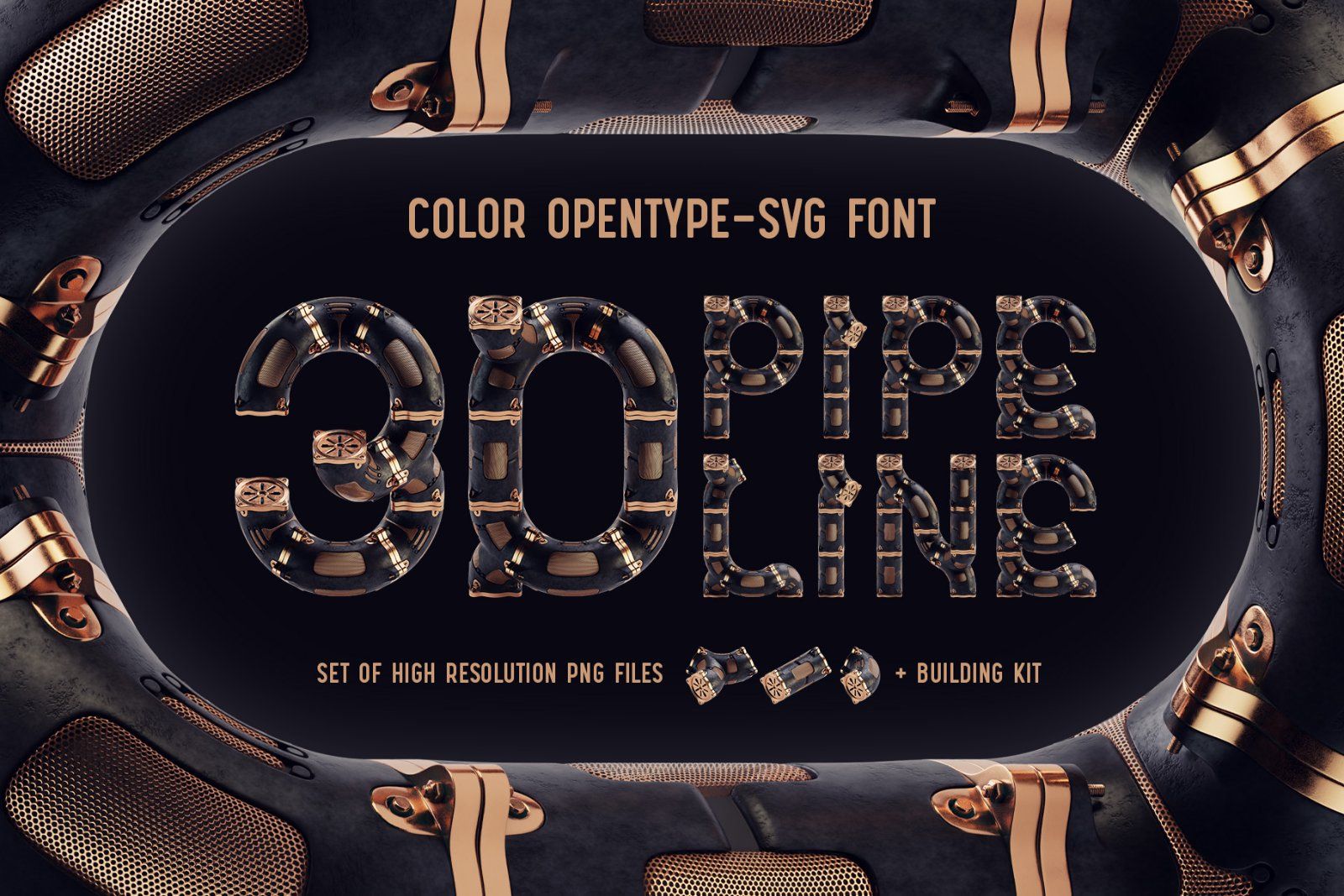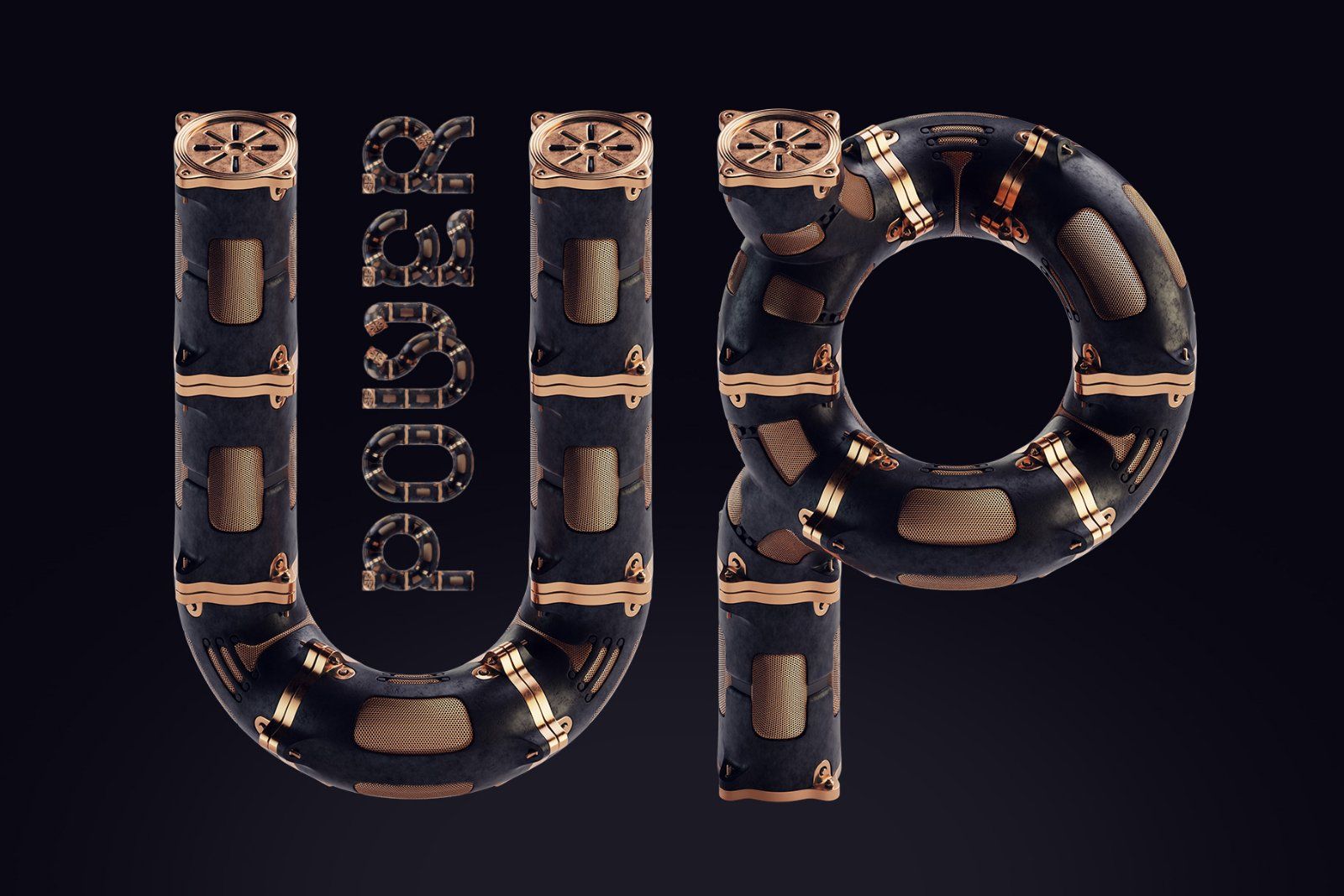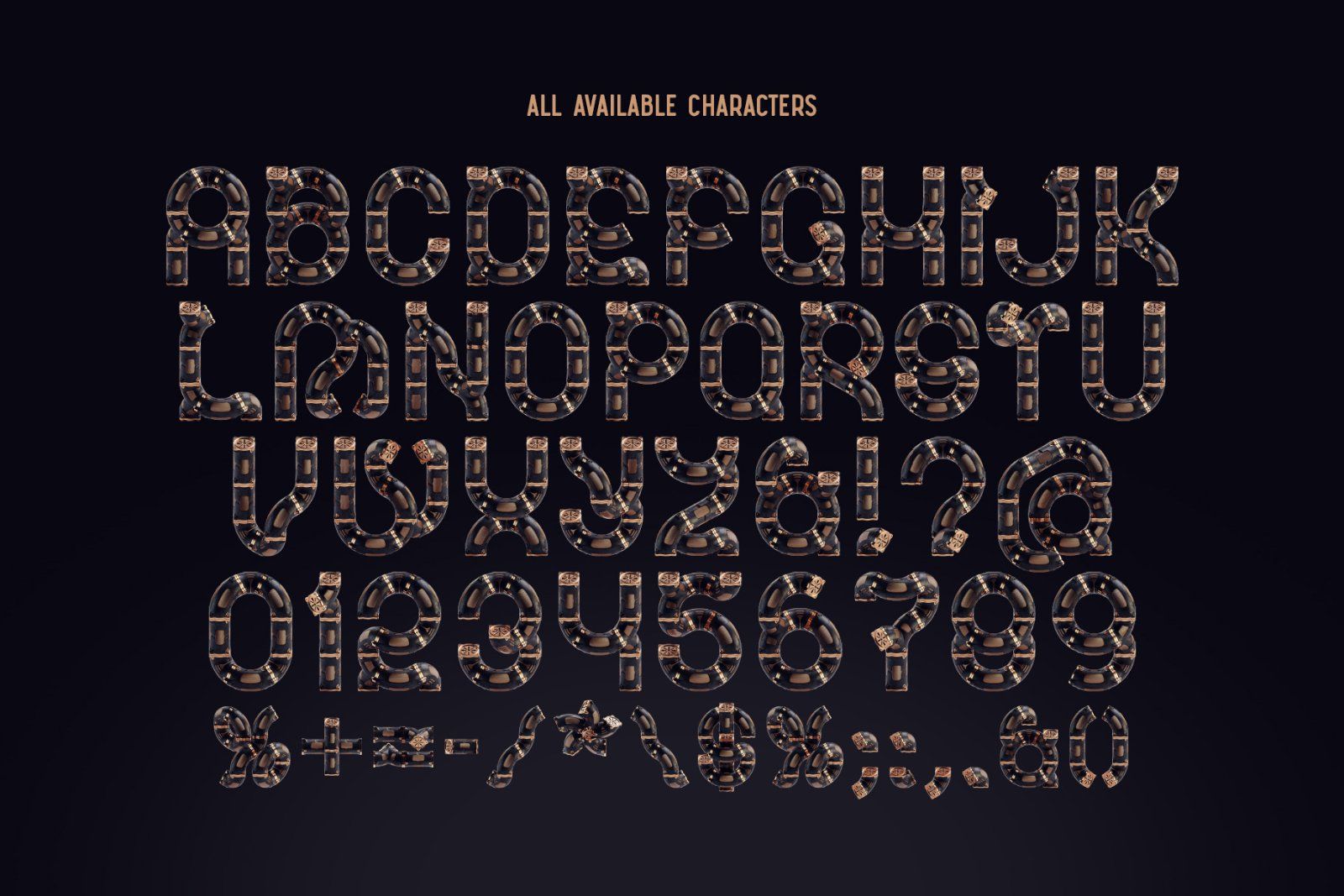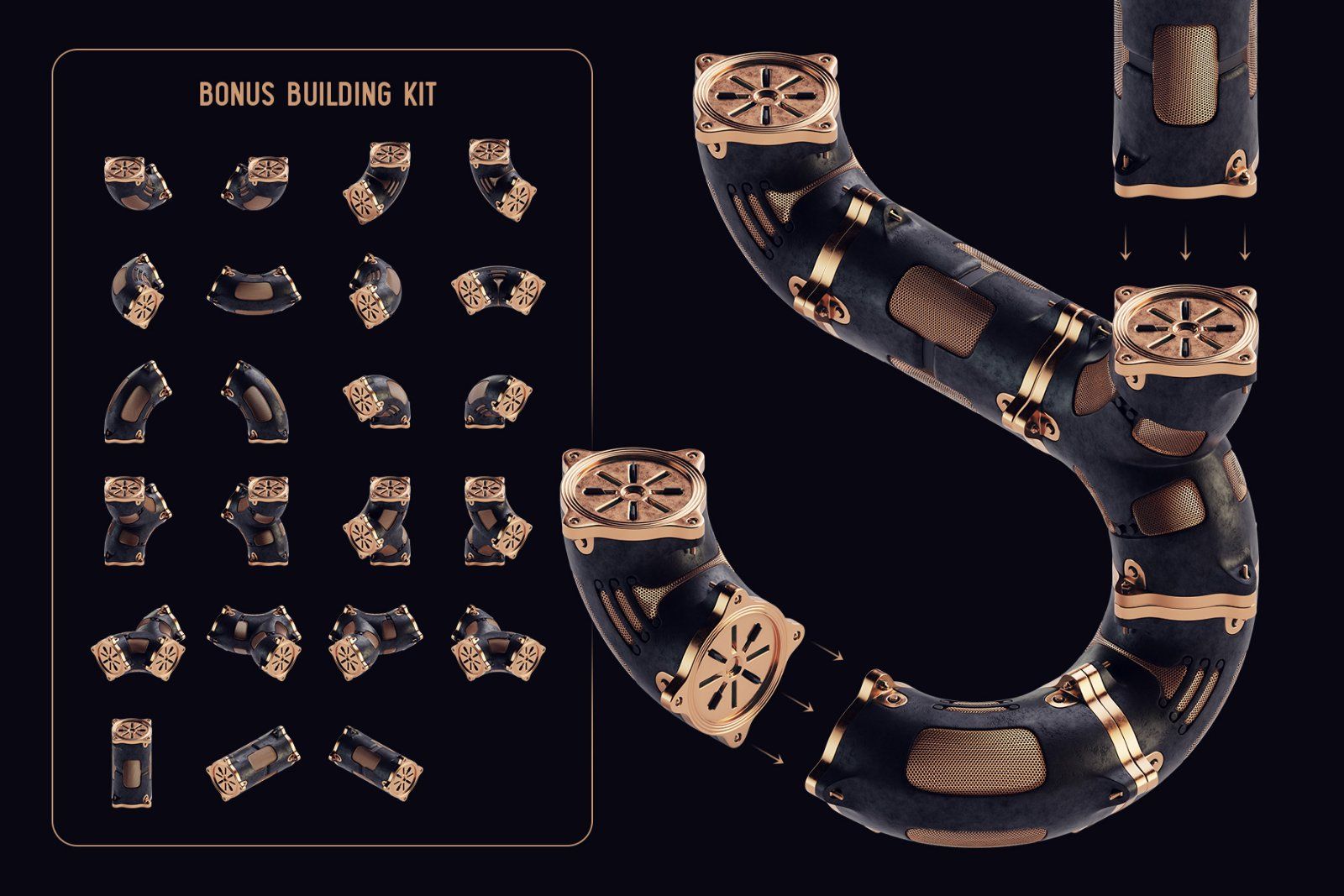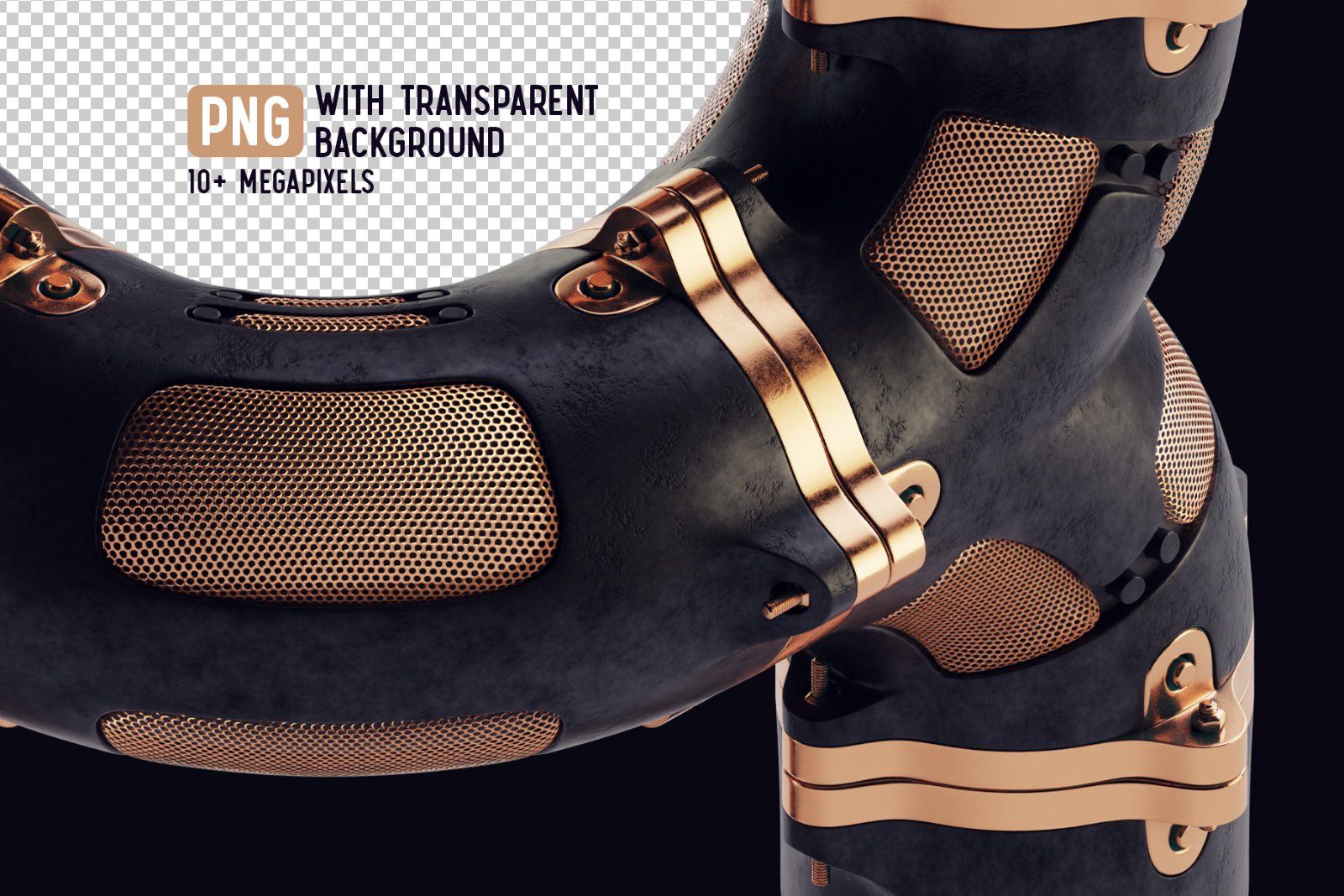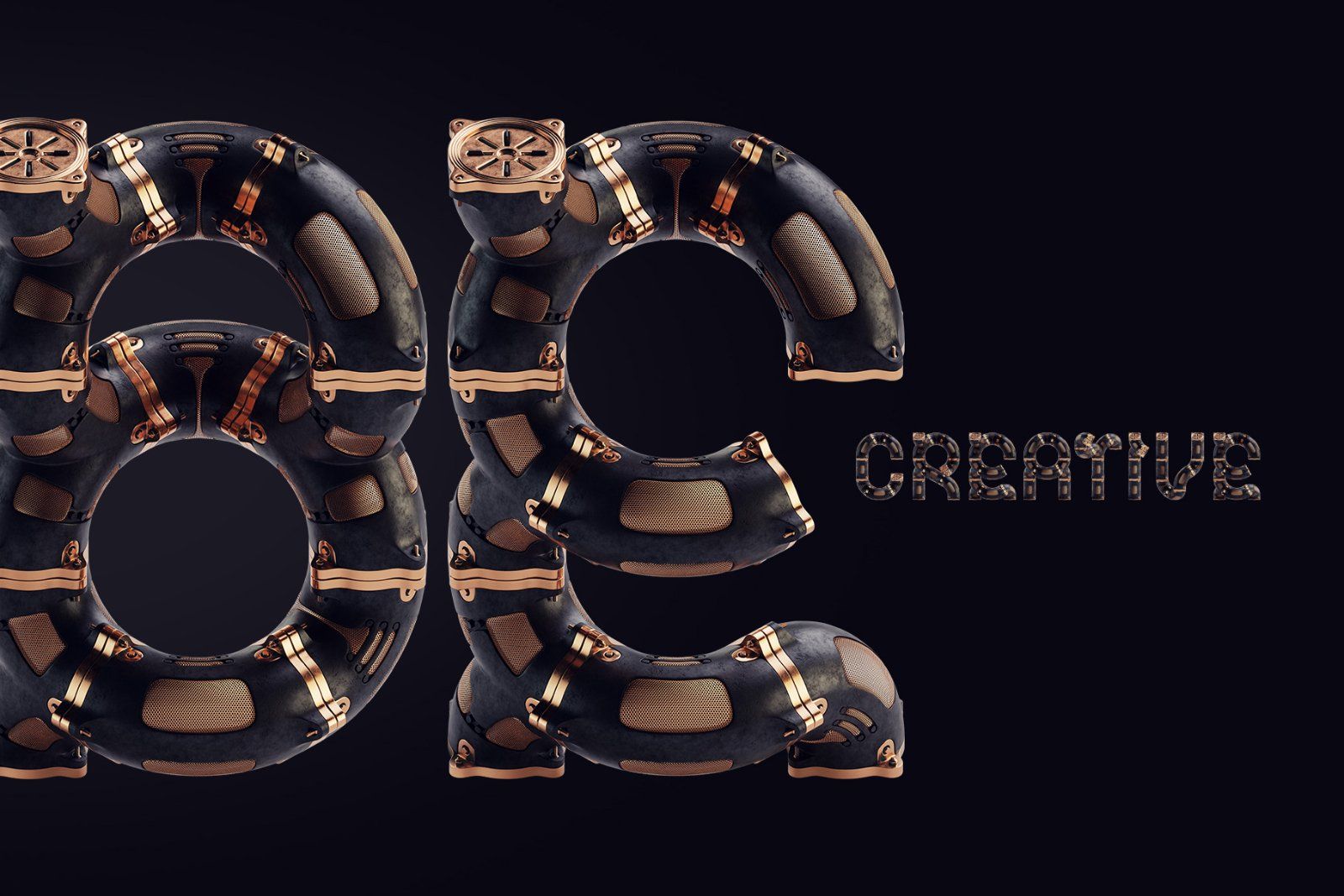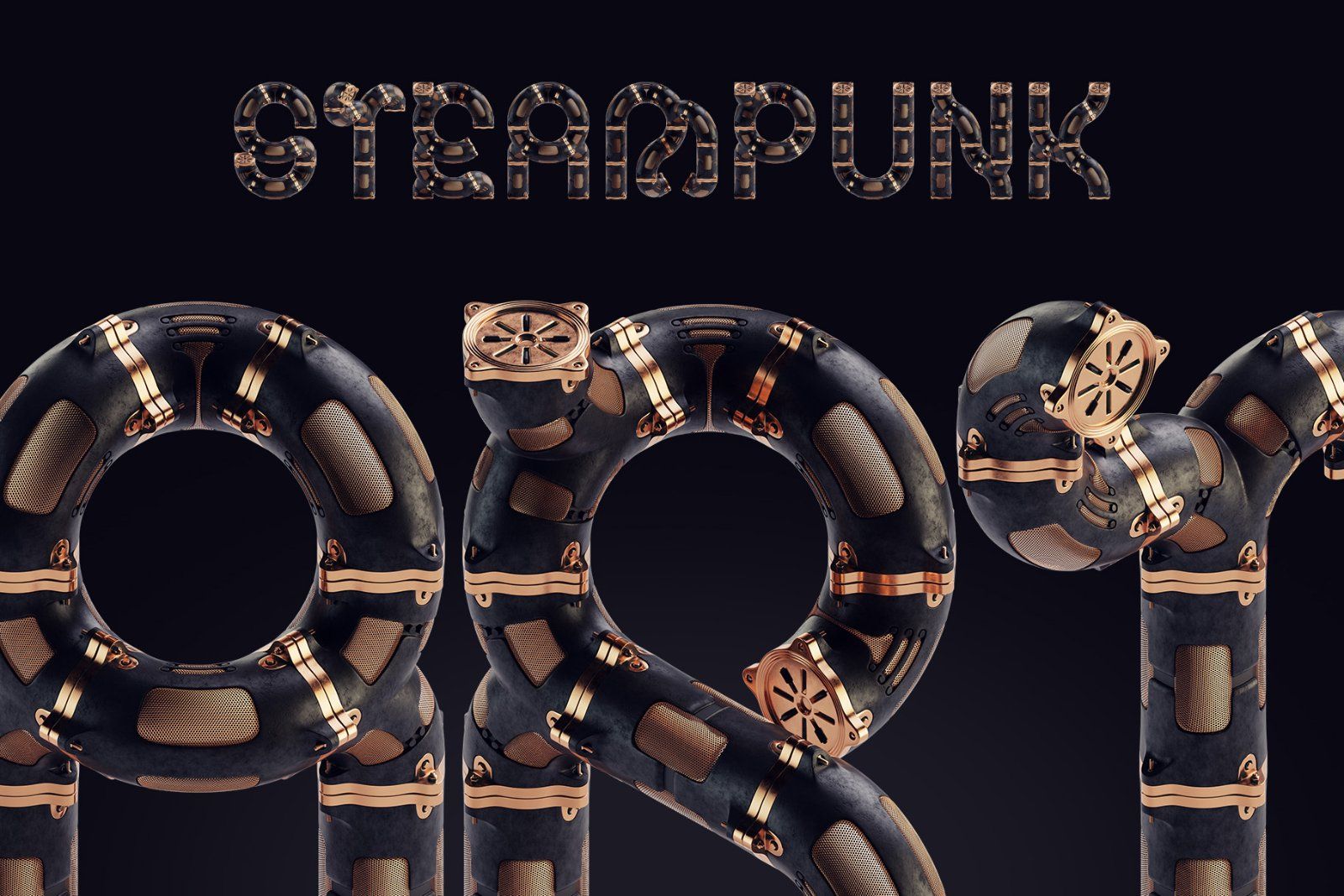
Hello! Presenting steampunk style 3d font Pipeline. It's a 3d rendered high quality typeface made of copper pipes with hi-tech design elements. First of all it's a color bitmap OpenType-SVG font that can be used as a usual OTF font. Also a set of full resolution PNG files with transparent background is included.
The most fun part of this package is a bonus building kit. It's a set of various PNG files with elements which can be manually composed in any shape.